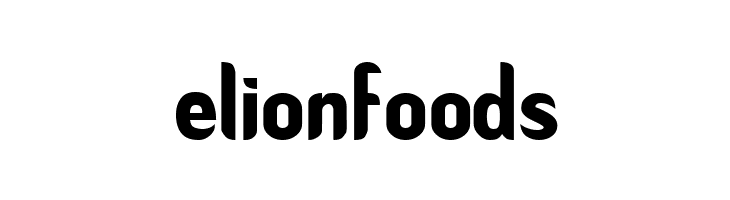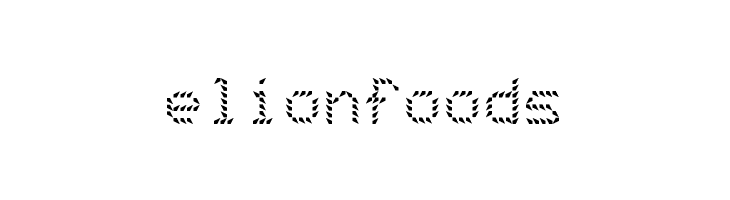
A decorative font with a cross-stitch embroidery style.
A decorative font with medieval and fantasy-inspired elements, perfect for thematic designs.
A distressed typewriter-style font with a strikethrough effect across all characters.
A bold, playful font with a hand-drawn, dynamic style.
A rugged, distressed font with a hand-drawn, edgy style.
A bold, geometric font with a Greek-inspired design and double-line detailing.
A bold, rounded font with a strong, playful presence.
A bold, angular font with a geometric and modern style.
A bold, angular font with a modern and edgy geometric style.
A bold, geometric font with clean, rounded edges and a modern aesthetic.
A bold, textured font with a hand-drawn, crosshatched style.
A bold, hand-drawn font with a textured, cross-hatched pattern.
A decorative font made of hearts and crosses, perfect for romantic themes.
A decorative font with an embroidered, cross-stitched style.
A decorative font with a cross-stitch pattern, ideal for festive designs.
A playful, hand-drawn font with a crosshatch pattern and bold strokes.
A playful, handwritten font with irregular strokes and a casual style.
A bold, textured font with a crosshatched pattern for dynamic visual impact.
A decorative font with characters encased in skull and crossbones motifs.
A decorative font with a cross-stitch pattern, offering a vintage and handcrafted look.